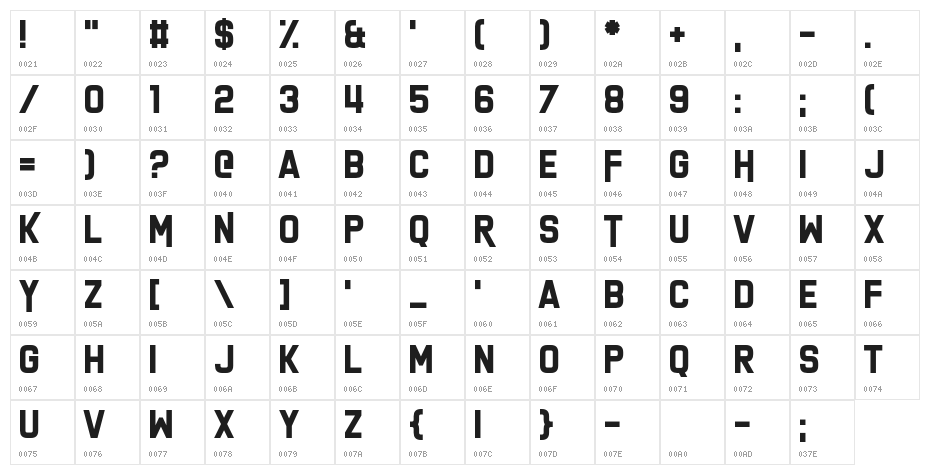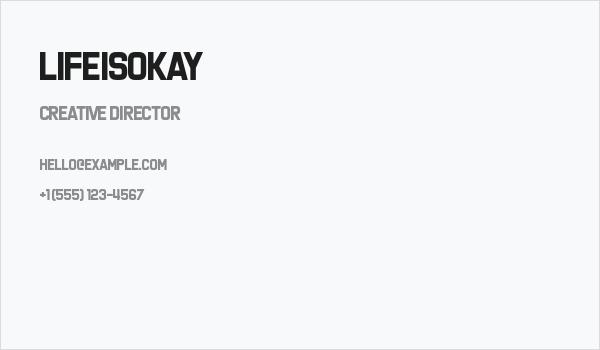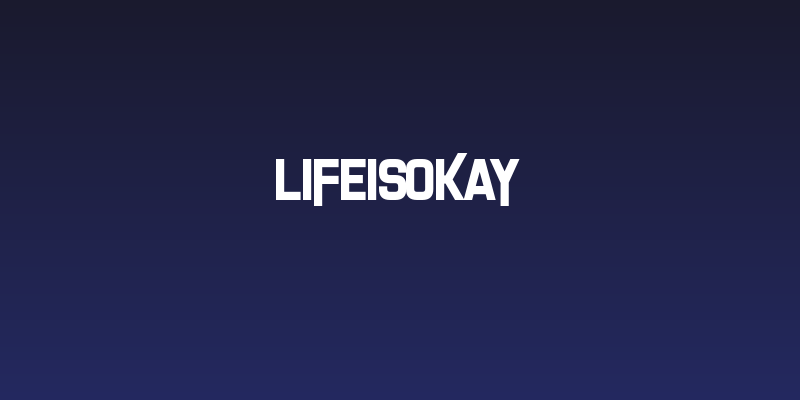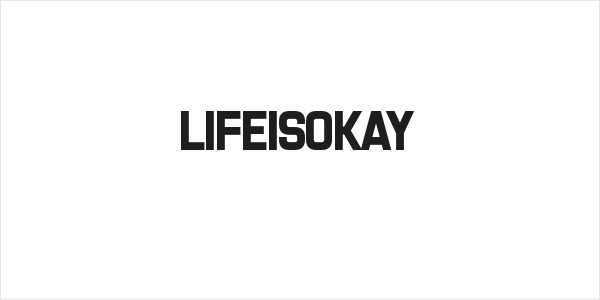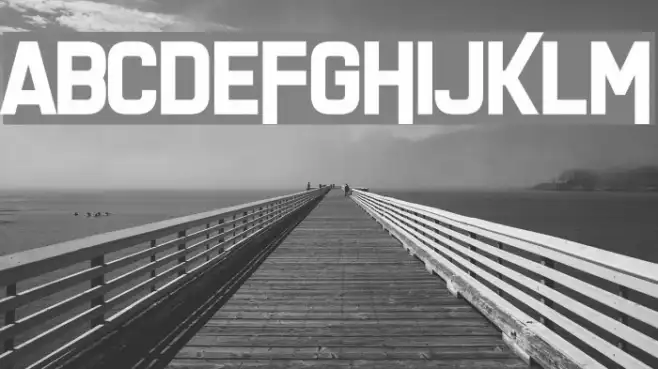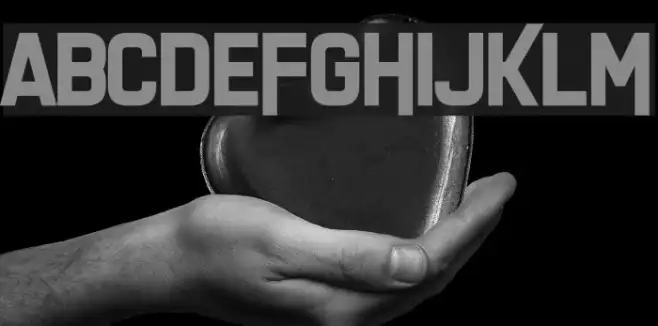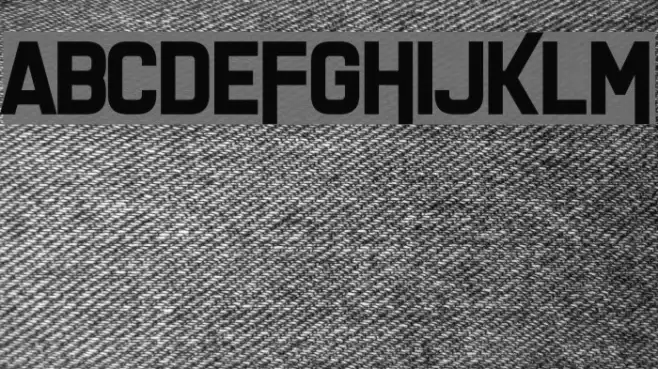
LifeIsOkay Font
LifeIsOkay Description
This font features bold, geometric letterforms with a strong presence, characterized by uniform stroke widths and a modern, industrial aesthetic. The uppercase and lowercase letters maintain a consistent style, with sharp angles and clean lines. The numbers are equally robust, ensuring clarity and legibility. Special characters are designed to match the boldness of the alphabet, making them suitable for impactful designs. The overall appearance is clean and straightforward, making it versatile for various applications.
| Proposed Projects | Ideal for branding, headlines, posters, and signage where a strong, modern look is desired. |